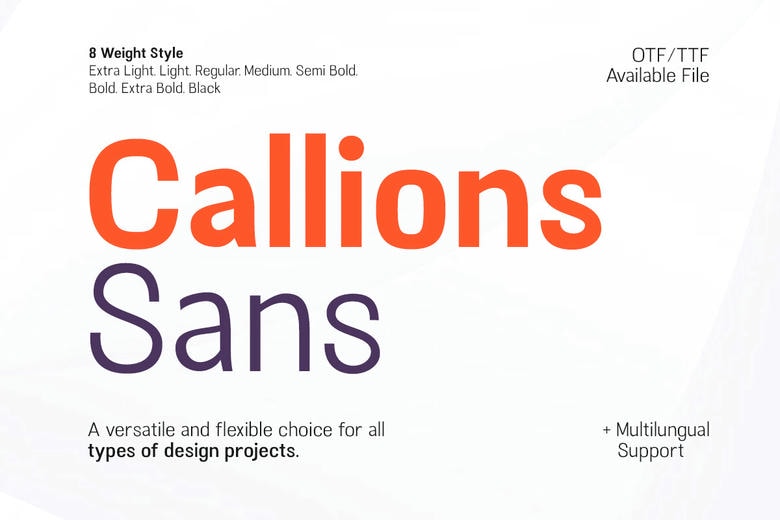
Callions Font Family
Callions is a basic sans serif type family for today’s use with clean lines contemporary for any need, use and requirement. It has 8 weight style from Extra Light to Black where you can select to avoid on any project such as sign, quote, branding, etc. This font family also support multi language!
Callions Sans Serif Font Family